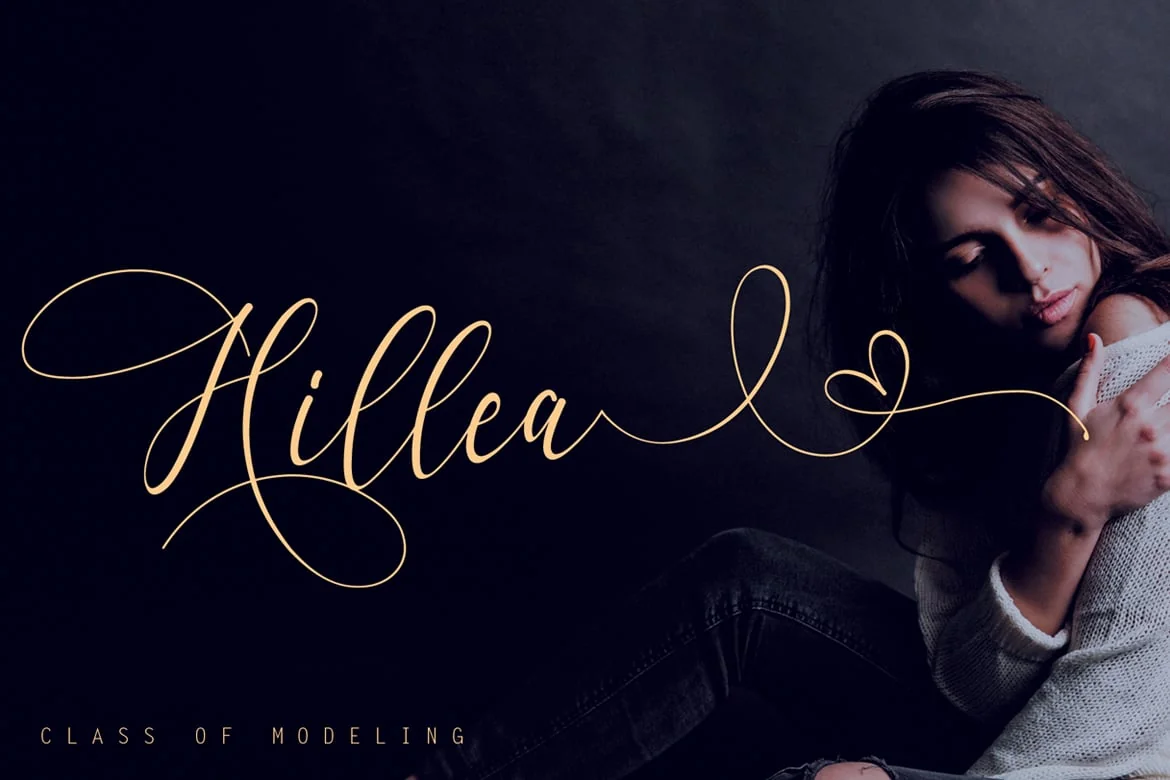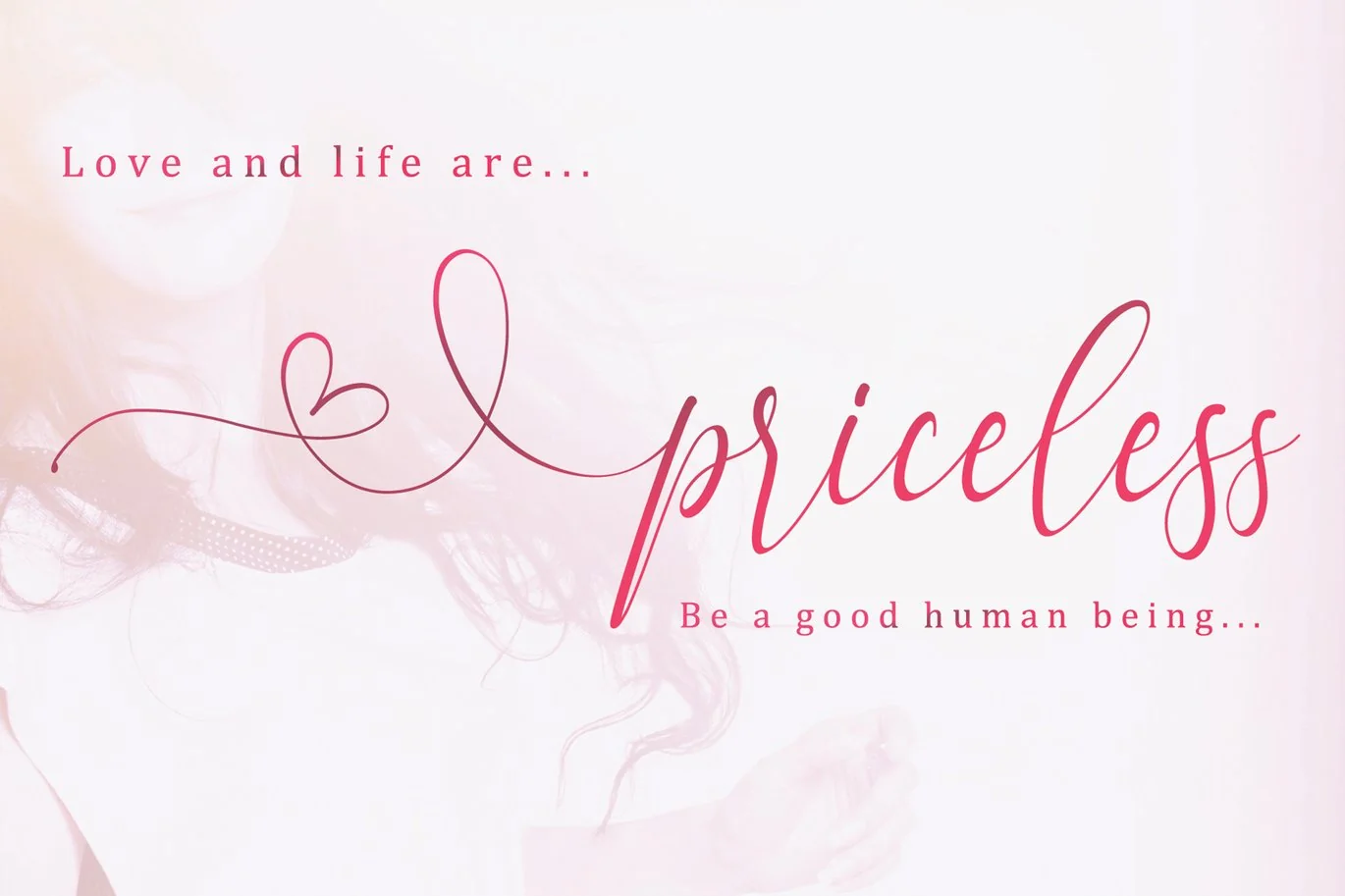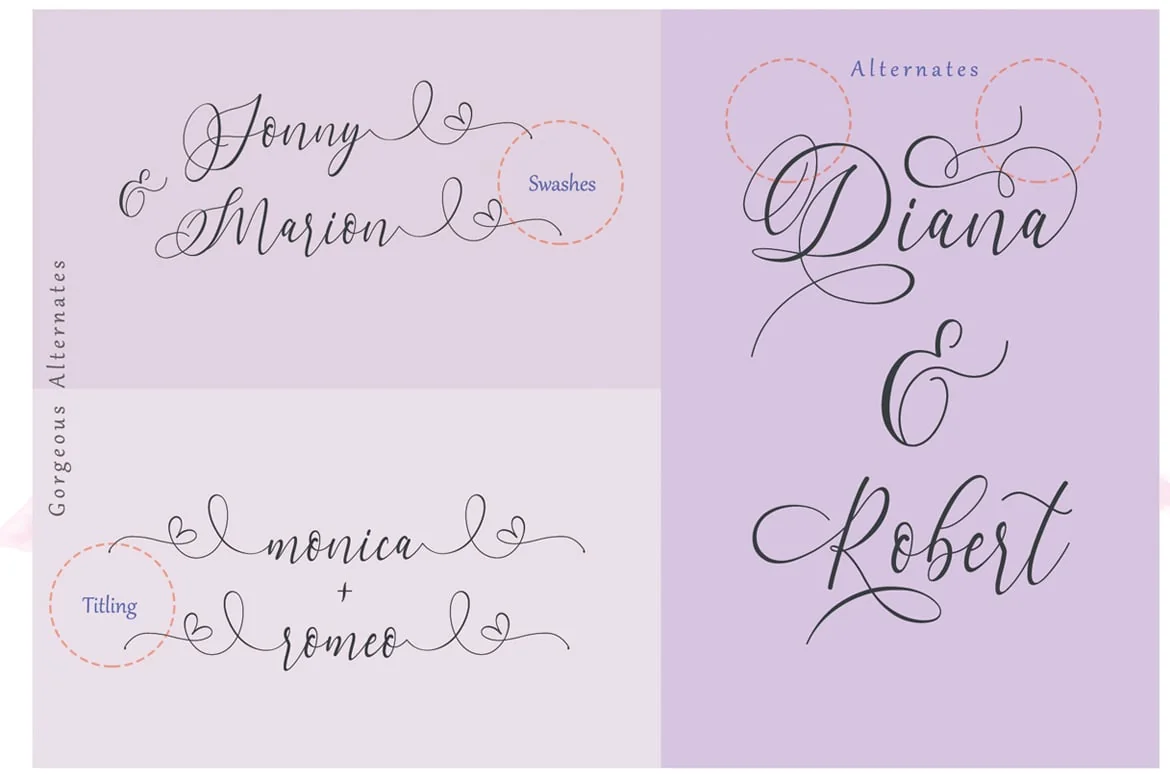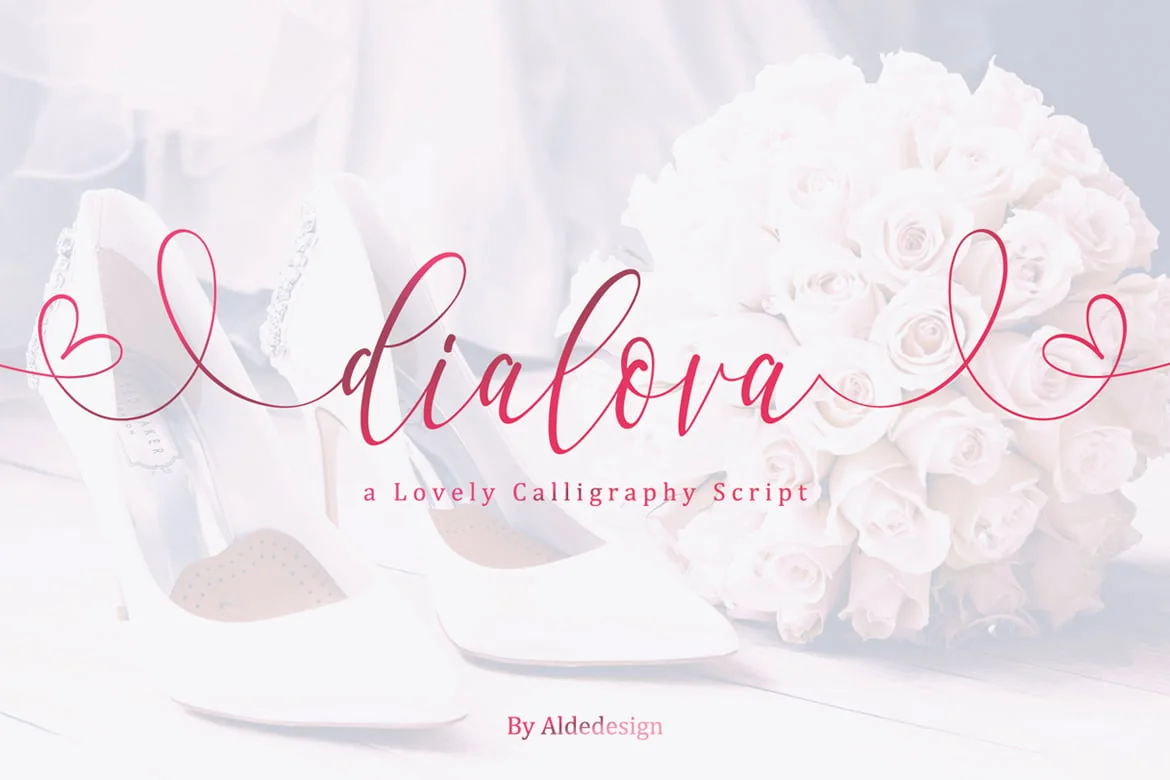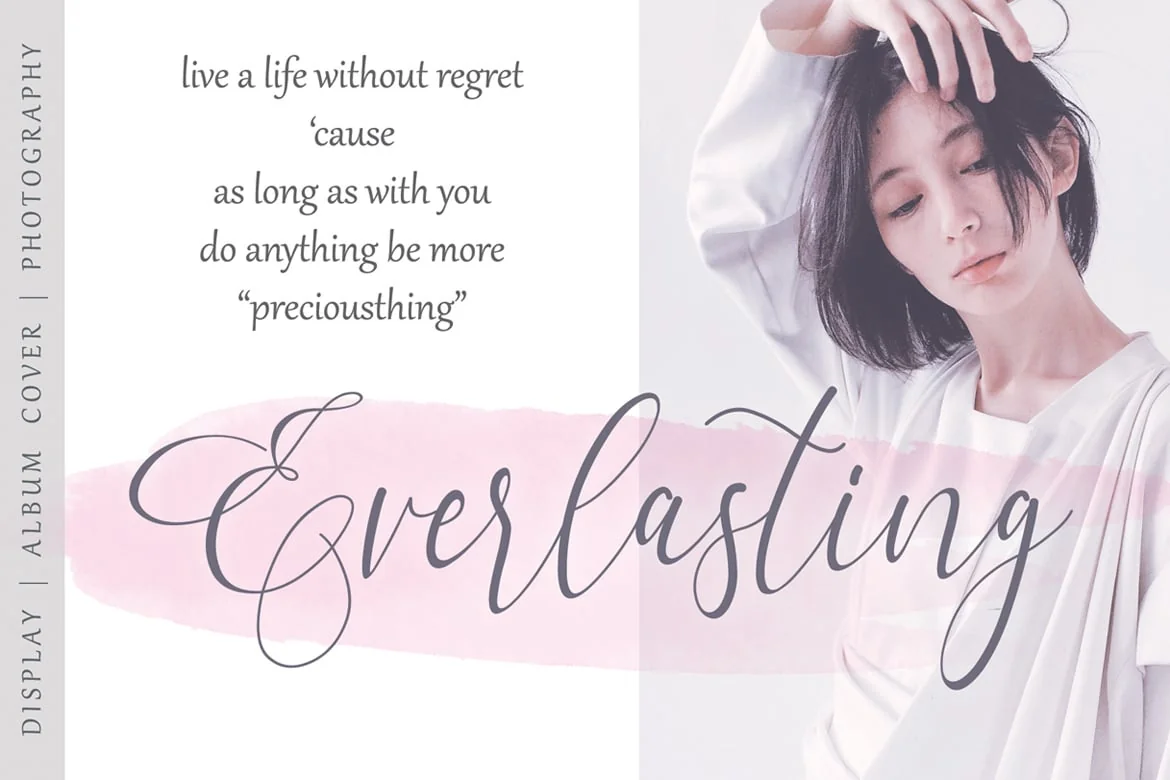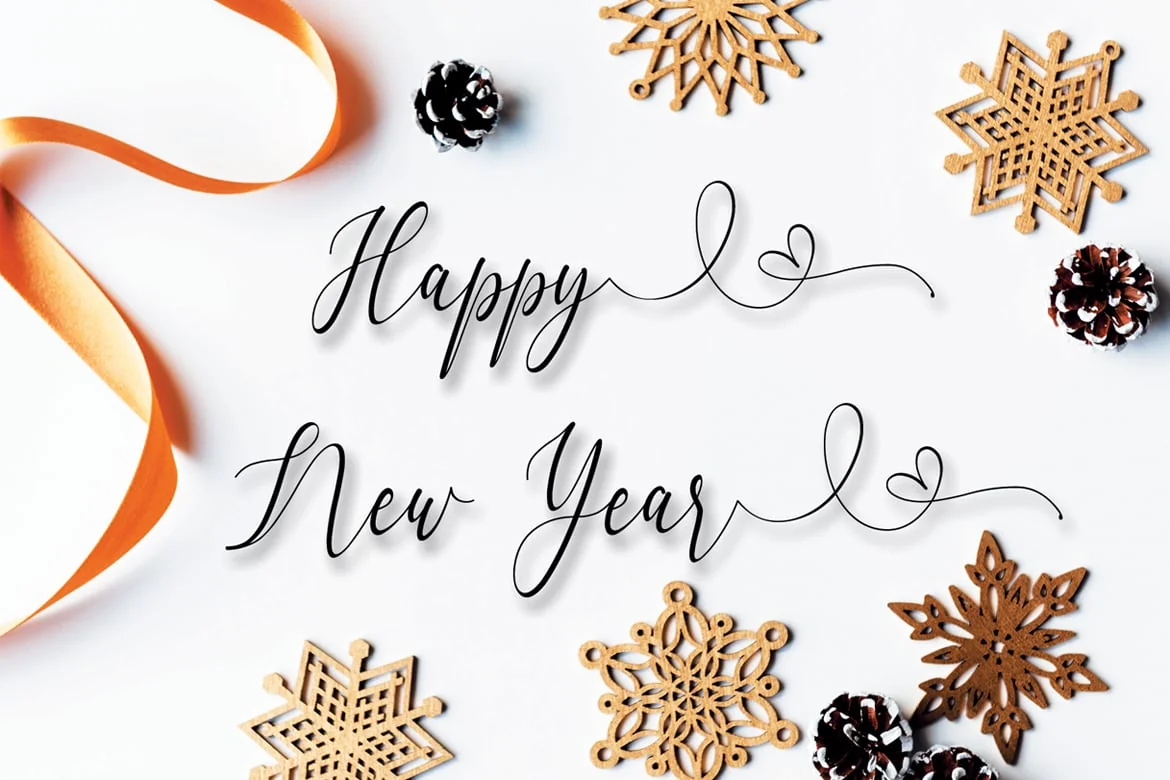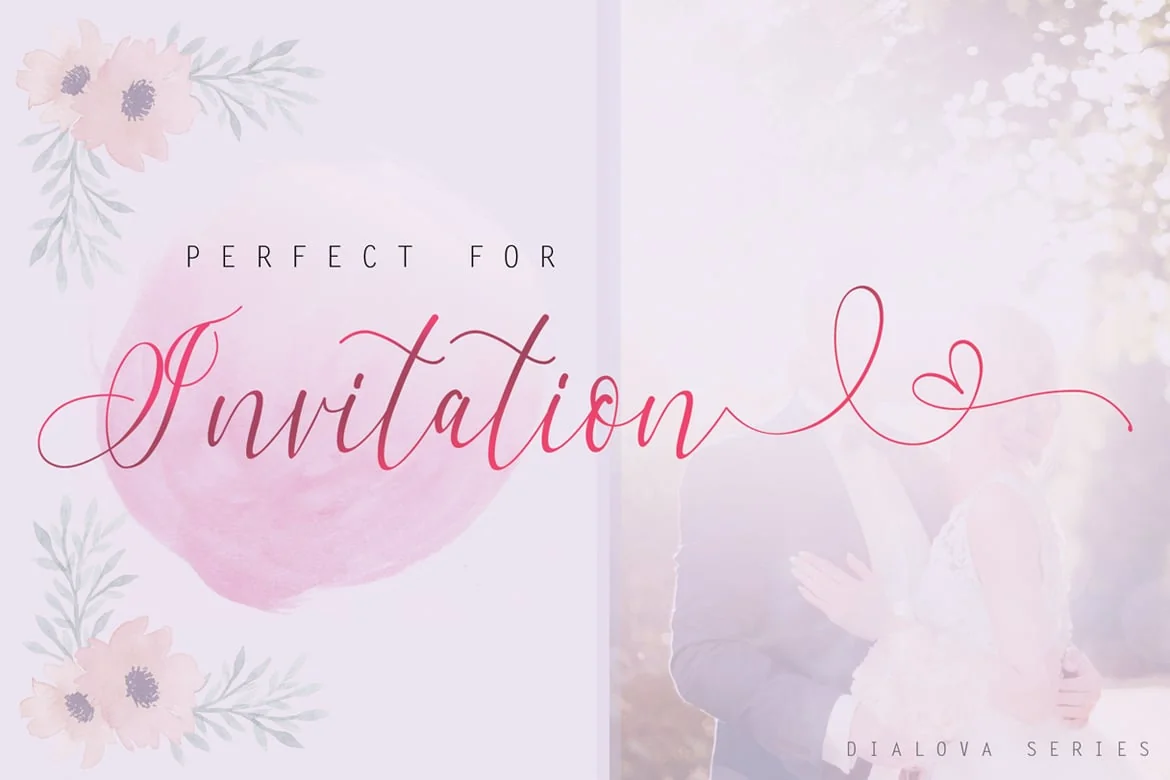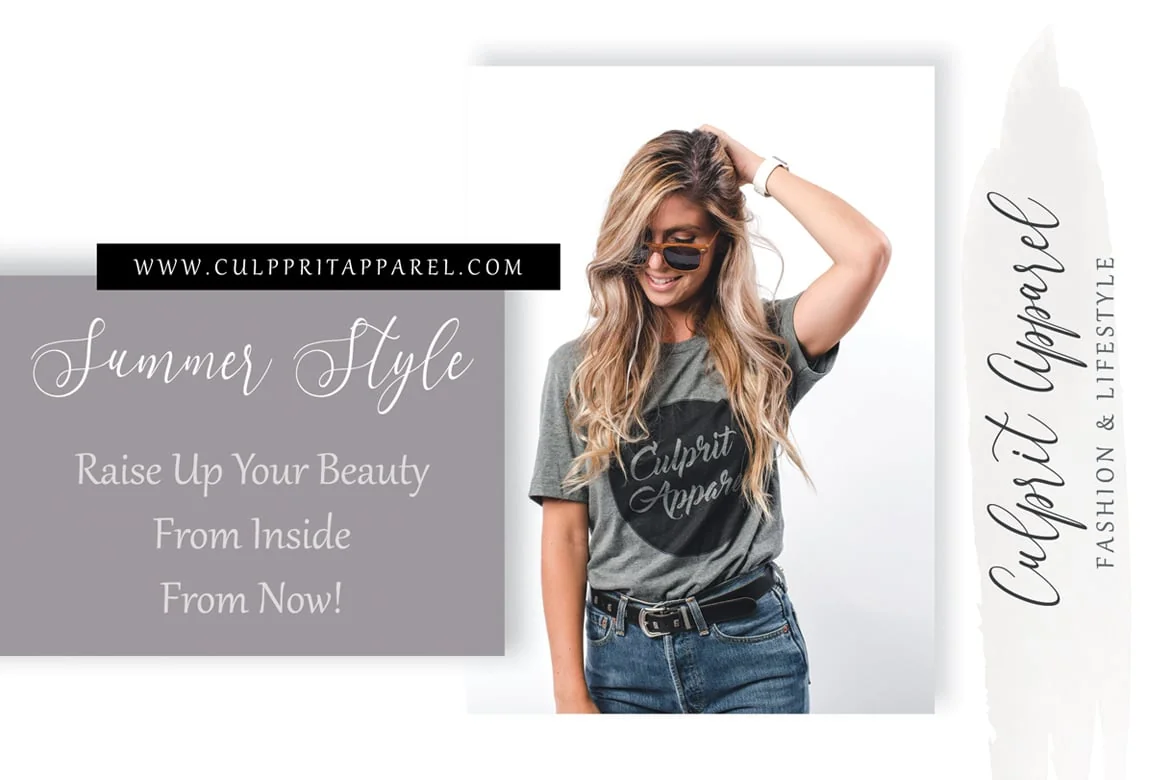
Dialova – Beautiful Calligraphy Font
Dialova Calligraphy is a stylish calligraphy font that features a varying baseline, smooth line, modern and with a depth love. For those of you who are need a touch of love and modernity for your designs or branding, it can be used for various purposes such as headings, wedding, invitation, signature, logos, branding, t-shirt, letterhead, signage, lable, news, posters, badges etc.
Each Font Has:
- Stylish handwritten style
- Beautiful Swash (Ending tail)
- Beautiful Titling (Beginning tail)
- Special Ligatures